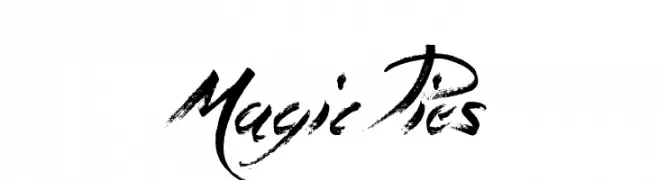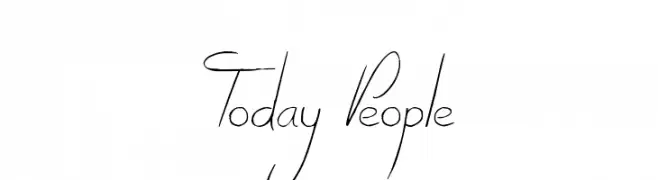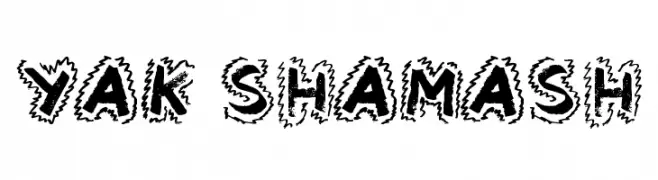
A dynamic, hand-drawn script font with textured, flowing letters.
A bold, jagged font with spiky edges, perfect for dynamic and energetic designs.
A bold, textured font with a hand-drawn, sketch-like appearance.
A bold, expressive brush script with a textured, hand-painted appearance.
A flowing, elegant script font with a handwritten style.
An elegant, artistic script font with flowing, elongated lines and a calligraphic style.
A dynamic, brush-style script font with bold, expressive strokes.
An artistic, calligraphic font with decorative elements and bold strokes.
An elegant and whimsical script font with intricate swirls and loops.
A dynamic script font with rough, textured strokes and a handwritten feel.